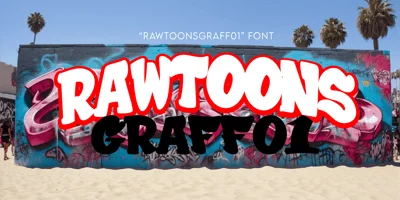
Rawtoons Graff01 Font
Rawtoons Graff01 Font is excellent for street art projects, urban fashion branding, hip-hop culture designs, graffiti-inspired artwork, youth lifestyle marketing, skateboard graphics, underground music promotions, street wear packaging, urban event materials, and contemporary cartoon animations.
What makes Rawtoons Graff01 Font exciting is its authentic street energy that perfectly captures the raw creativity and rebellious spirit of urban graffiti culture and underground artistic expression. This typeface features bold letterforms with spray-painted textures and street-inspired details that evoke the dynamic energy and artistic freedom of city walls and urban art movements. The font's edgy personality and street authenticity make it ideal for brands targeting youth culture, street artists, and urban communities who appreciate genuine artistic rebellion and underground creative expression.
Rawtoons Graff01 Font family includes various stylistic alternatives and street elements that enhance its graffiti character while providing design flexibility for urban and youth culture applications. The font features spray-paint effects, street-style ligatures, and graffiti-inspired character variations that create authentic urban atmosphere for street and youth branding.
Urban lifestyle brands and youth culture companies consistently choose Rawtoons Graff01 Font for projects requiring authentic street appeal and underground credibility. The font's raw character excels in applications targeting young urban demographics who appreciate genuine street art culture and underground artistic movements. Whether you're designing for streetwear brands, urban music venues, or youth culture events, this dynamic typeface delivers the street authenticity and artistic rebellion that resonates with audiences seeking genuine urban expression and the creative freedom that defines authentic street art culture.